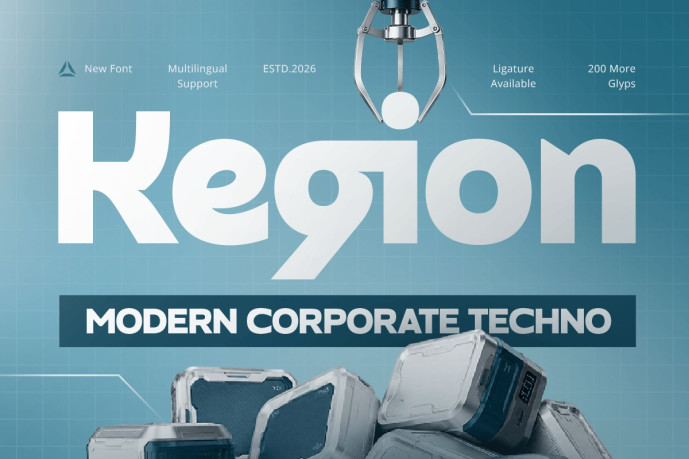
Kegion – Modern Corporate Techno Font
Kegion – Modern Corporate Techno Font is a clean and contemporary techno font designed for technology branding, corporate identities, startup logos, and modern business communication. Inspired by innovation, digital transformation, and professional corporate design, Kegion combines refined typography with subtle futuristic elements to create a strong, credible, and forward-thinking visual identity.
Featuring modern geometric letterforms, balanced proportions, and sleek techno-inspired styling, Kegion delivers exceptional readability while maintaining a distinctive technological character. Its versatile design is ideal for logos, corporate branding, presentations, websites, software products, and digital marketing materials.
Whether you’re launching a technology startup, building a corporate brand, designing a software identity, or creating professional visual assets, Kegion provides the precision and versatility needed to communicate innovation and reliability.
Kegion Font Features
Character Set: Uppercase, lowercase, numbers, symbols, and punctuation
Modern corporate techno letterforms optimized for branding and logo design
OpenType features ready to enhance your design needs
Kegion is Perfect For
Technology startup branding
Corporate logo and business identity design
Software and SaaS branding
Digital product and application branding
Website headers and user interface design
Business presentations and marketing materials
Technology consulting and innovation companies
Contemporary display typography
Whether you’re creating a technology logo, developing a corporate identity, launching a digital business, or designing professional branding materials, Kegion delivers the innovation, clarity, and professionalism of a modern corporate techno font crafted for today’s technology-driven brands.